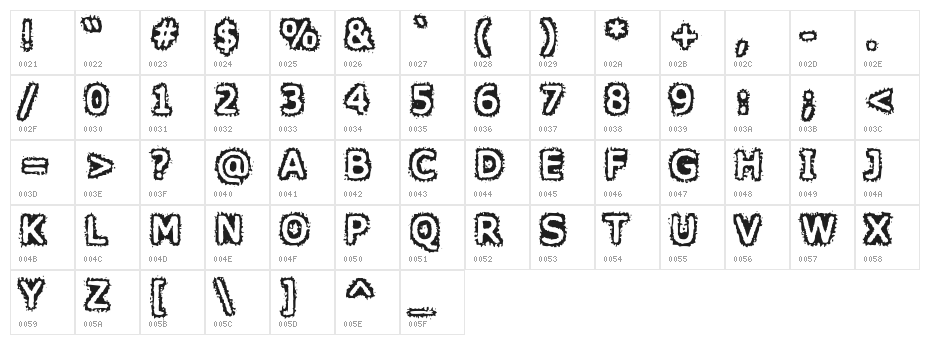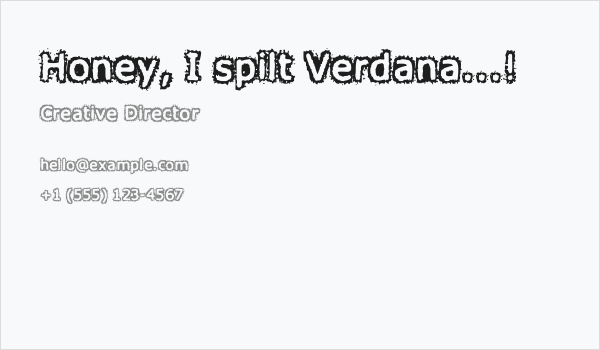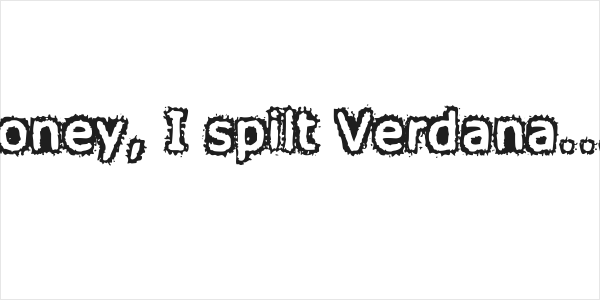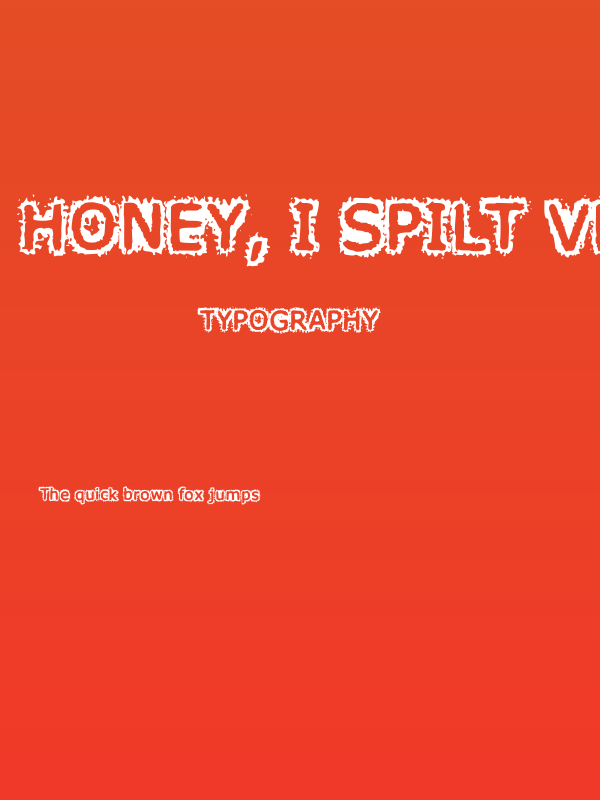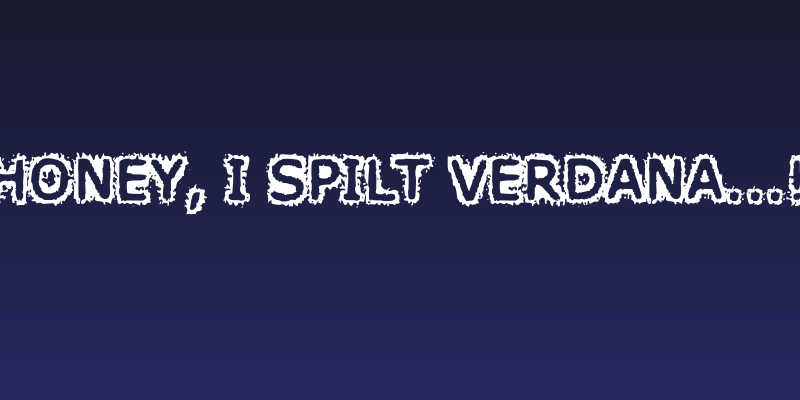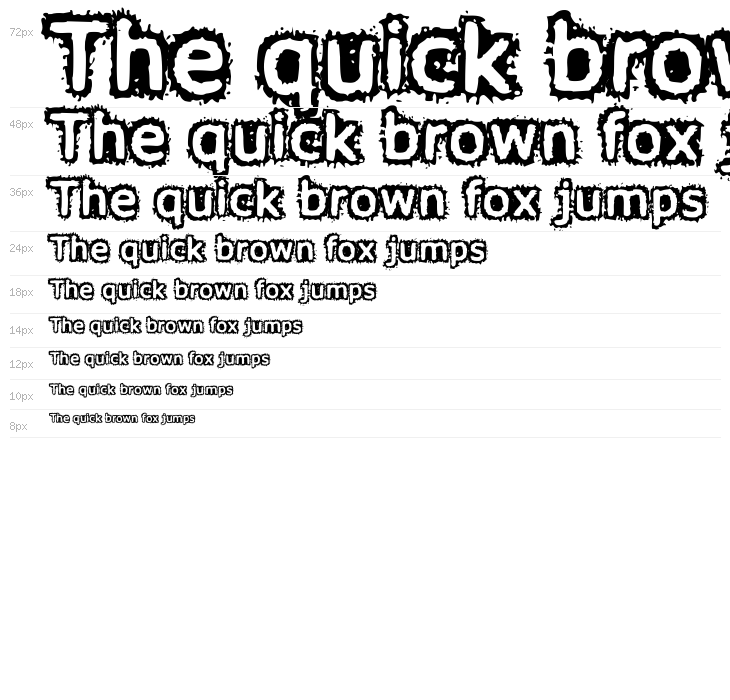
Honey, I spilt Verdana...! Font
Honey, I spilt Verdana...! Description
This font features a playful and chaotic style, with each character appearing as if it has been splattered with ink or paint. The edges are irregular and jagged, giving it a dynamic and energetic feel. Despite the rough outlines, the characters maintain a consistent structure, ensuring readability. The bold and thick strokes add to its striking appearance, making it ideal for attention-grabbing designs. The font's unique texture and boldness make it stand out, suitable for creative and unconventional projects.
| Proposed Projects | Ideal for posters, album covers, graffiti art, and any project needing a bold, artistic touch. |